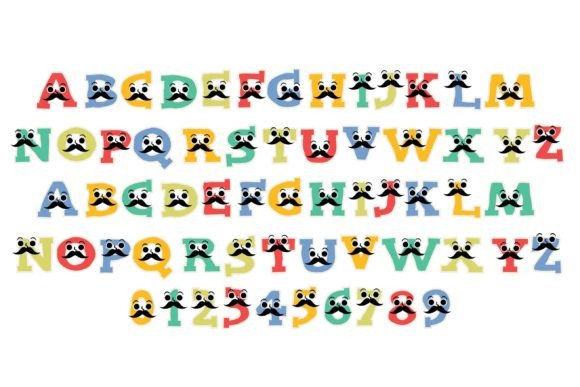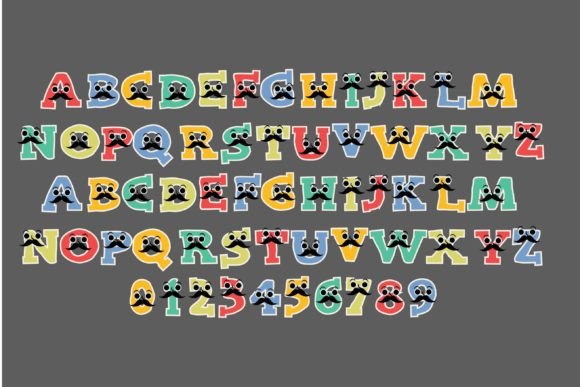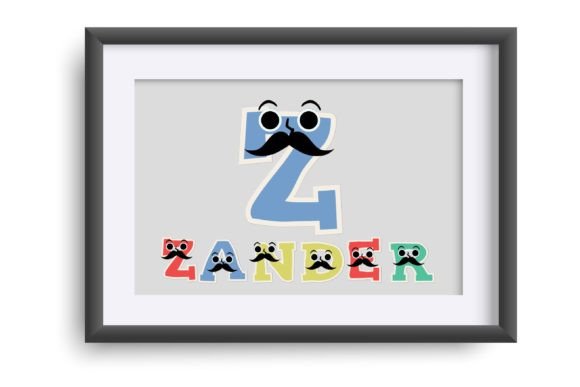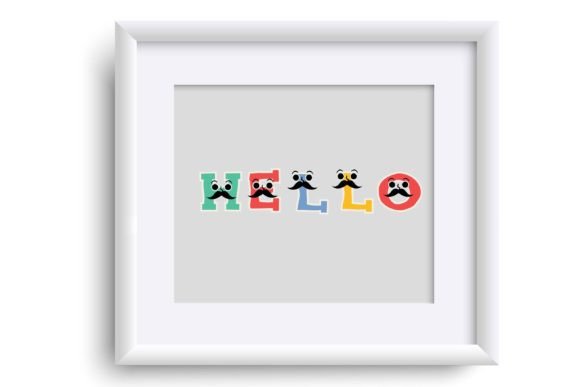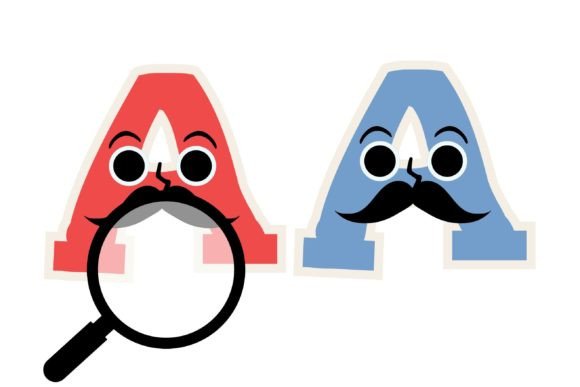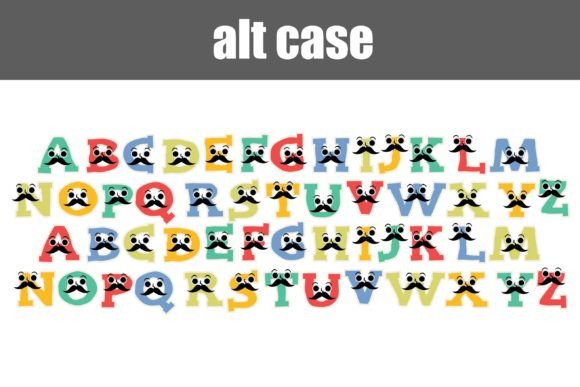
Introduction to Funny Father Font
This full-color font features a blocky serif lettering with eyes and mustaches.
There is an alt version you can access through your systemโs character map that contains additional colors of all the letters OpenType full-color (SVG) fonts are installed like any normal .
Key Features of Funny Father Font